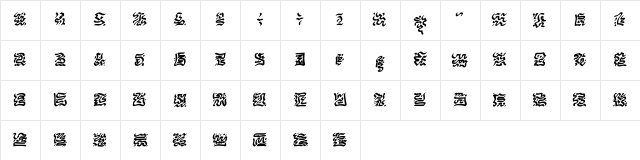
VICNORA Regular
Design Context for VICNORA Typeface
VICNORA is a composed and adaptable typeface that performs quietly and consistently across a wide range of design contexts.